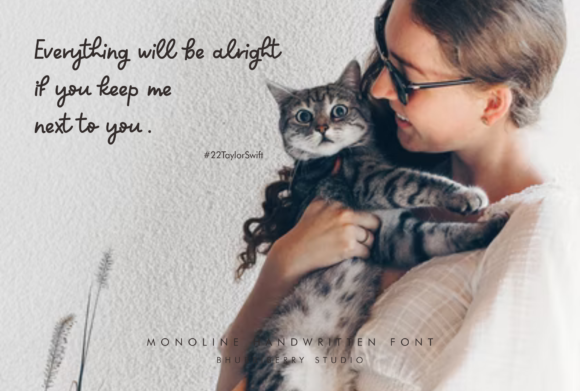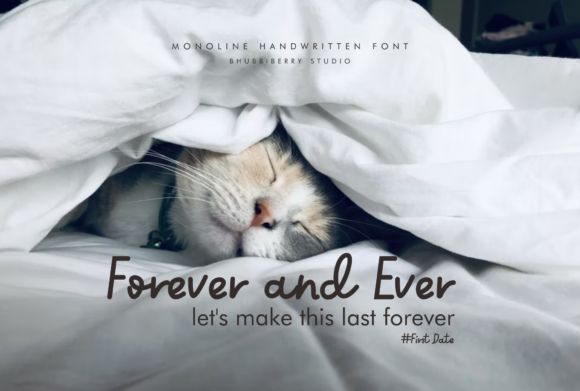
Freeya Font
db-ku.com - Script & Handwritten -- Freeya is a delicate and vintage styled script font. This font is gorgeous looking and it adapts on various design ideas. This font will look great on posters and flyers!